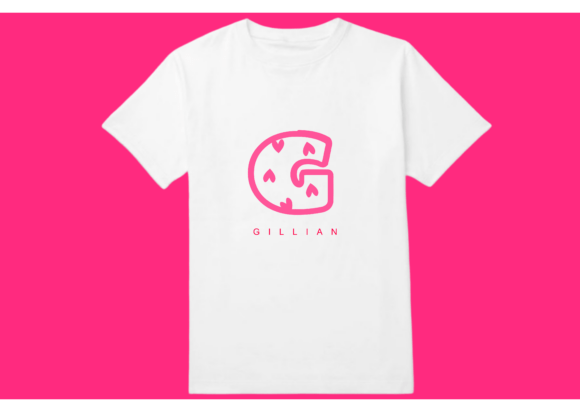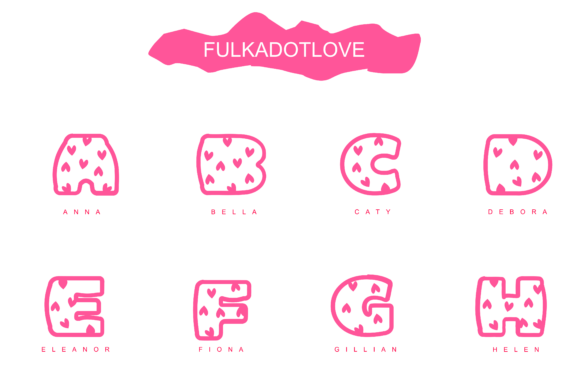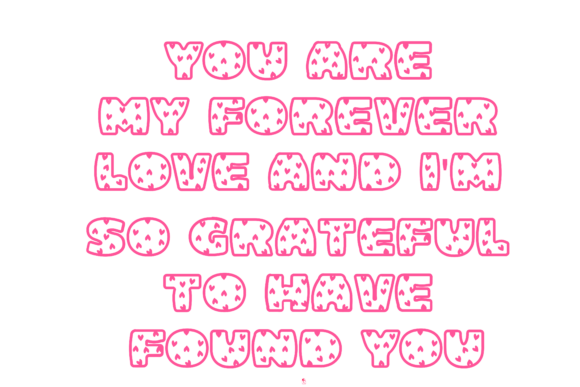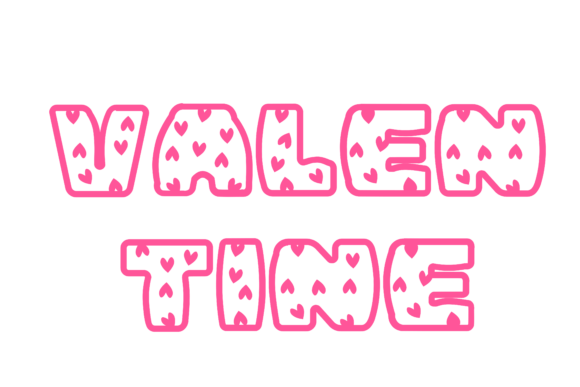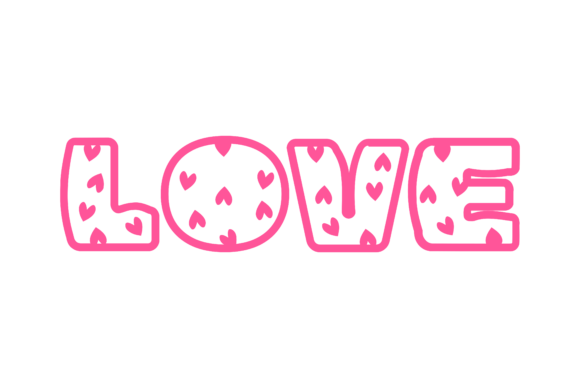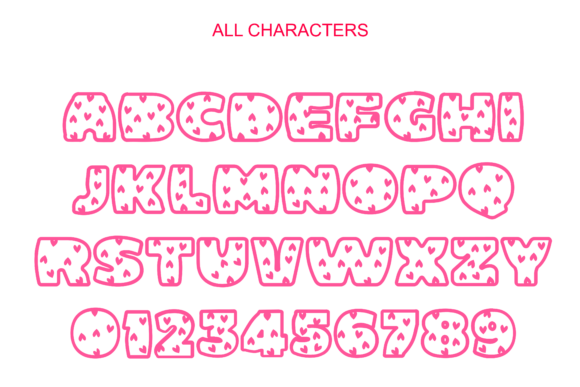
Unlock Endless Creativity with Fulkadot Love Font
Are you ready to take your designs to the next level with a font that embodies the vibrant power of color and motion? Look no further than Fulkadot Love, a pioneering typeface that is revolutionizing the world of typography. This mesmerizing font is designed to ignite your creative spark, unleashing infinite opportunities for artistic expression.
Introducing Fairy: A Unique Font for Creative Expression
At the heart of Fulkadot Love is Fairy, a unique font meticulously crafted to enhance your creative voice with depth and dynamism. With Fairy, you can elevate your design expertise to new heights, adding a touch of sophistication and elegance to your projects. Whether you’re a seasoned designer or a crafty enthusiast, Fairy is the perfect companion for your artistic journey.
The Power of Fulkadot Love
Fulkadot Love is more than just a font – it’s an experience. Its unrivaled uniqueness orchestrates a captivating synchrony that escorts your artistic journey into uncharted domains of creativity. With Fulkadot Love, you can:
- Infuse your designs with unyielding energy and vibrancy
- Unlock new possibilities for artistic expression
- Elevate your design expertise to new heights
- Harmonize effortlessly with your inventive spirit
The Audacious Charm of Fulkadot Love
Fulkadot Love is not just a font – it’s a statement. Its audacious and captivating charm is designed to fuel your artistic exploration, pushing you to new creative heights. With Fulkadot Love, you can:
- Add a touch of dynamism to your designs
- Create mesmerizing visual effects that capture attention
- Convey complex emotions and ideas with ease
- Stand out in a crowded design landscape
What Makes Fulkadot Love So Special?
Fulkadot Love is a game-changer in the world of typography. Here are just a few reasons why:
- Unique Design: Fulkadot Love boasts a one-of-a-kind design that sets it apart from other fonts.
- Vibrant Energy: This font embodies the vibrant power of color and motion, infusing your designs with unyielding energy.
- Endless Possibilities: With Fulkadot Love, the possibilities for artistic expression are endless.
- Effortless Harmony: This font harmonizes effortlessly with your inventive spirit, making it easy to incorporate into your designs.
How to Use Fulkadot Love in Your Designs
Ready to unlock the creative potential of Fulkadot Love? Here are some tips for incorporating this amazing font into your designs:
- Experiment with Colors: Fulkadot Love is designed to work beautifully with a range of colors. Experiment with different palettes to find the perfect combination for your design.
- Play with Motion: This font is all about motion and energy. Play with different motion effects to bring your designs to life.
- Mix and Match: Don’t be afraid to mix and match Fulkadot Love with other fonts and design elements to create something truly unique.
Fulkadot Love is more than just a font – it’s a creative catalyst that can take your designs to new heights. With its unique design, vibrant energy, and endless possibilities for artistic expression, this font is a must-have for designers and crafters. So why wait? Unlock the creative potential of Fulkadot Love today and experience the transformative power of color and motion in your designs.